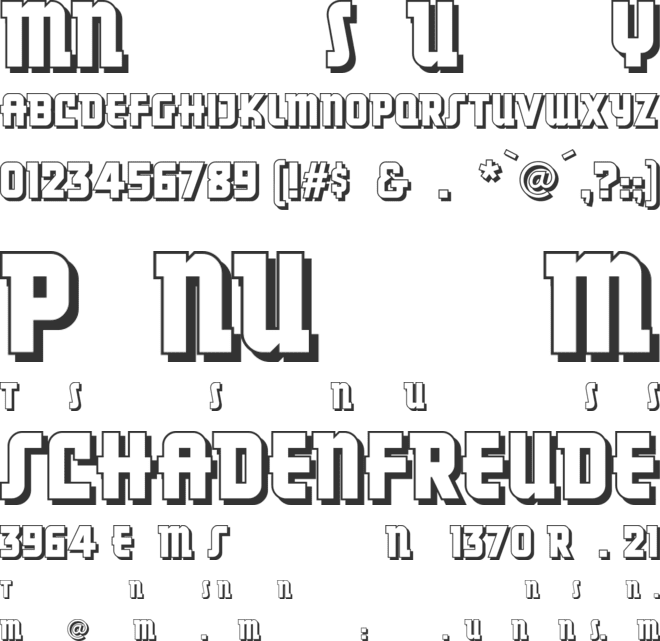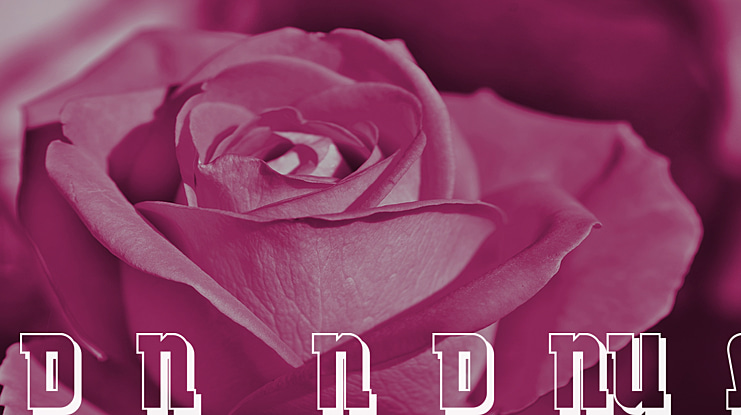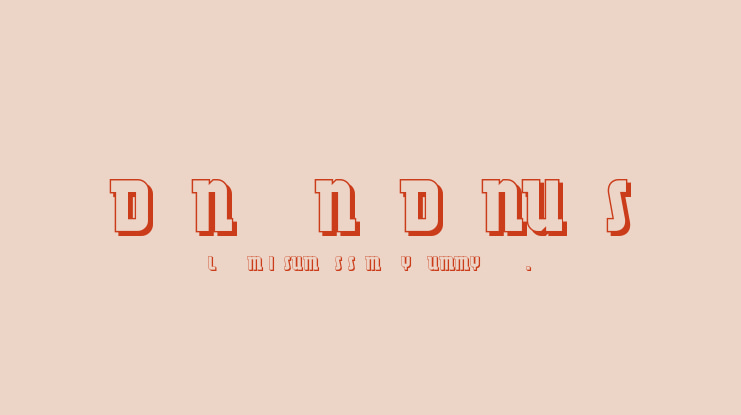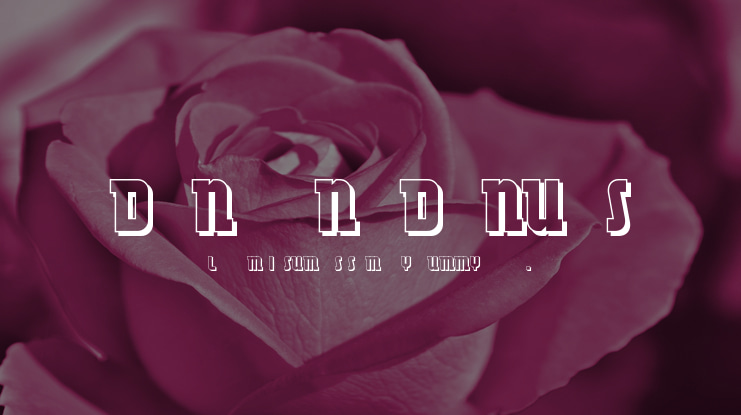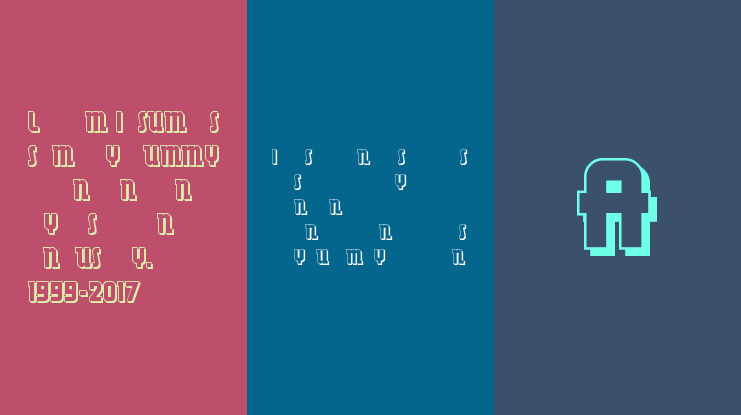
DancingDonuts Font
An all-purpose bold outline font with drop shadow. The letterforms were inspired by the logo for a local donut company (founded 1946), and the treatment was inspired by a 40s trade cut for dining and dancing. With those influences, you can no doubt surmise whence came the name.